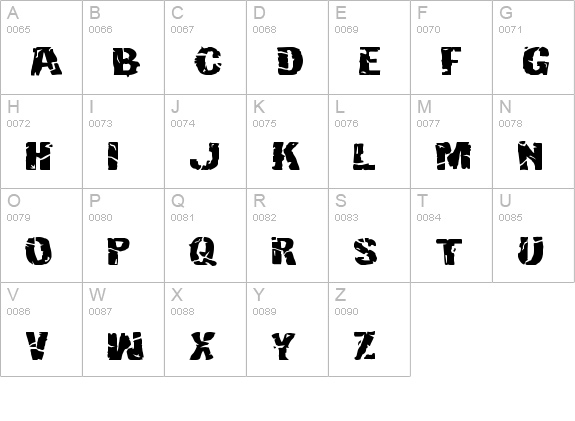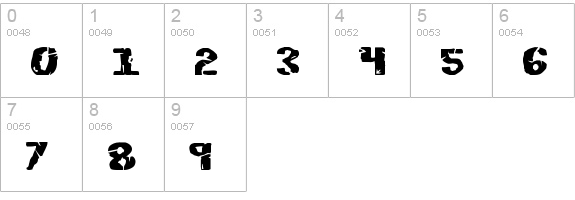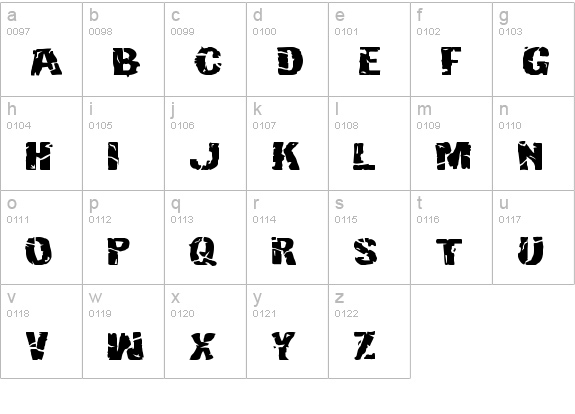
Hulkbusters font is a powerful and bold typeface designed to make a statement. With its strong lines and distinctive style, this font is perfect for grabbing attention and adding a dynamic touch to any design project. Inspired by the strength and force of the Hulk, Hulkbusters font exudes a sense of power and energy. The best part? Hulkbusters font is completely free to download at FontsMarket.com. Whether you're working on a poster, logo, or any other creative project, this font is sure to make an impact. Don't miss out on the opportunity to add this striking typeface to your collection. Download Hulkbusters font today and unleash its strength in your designs!